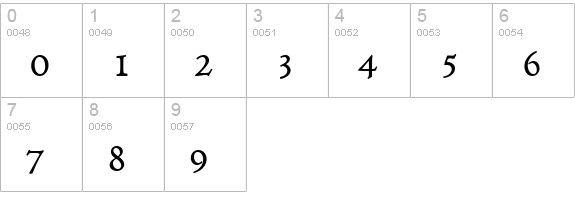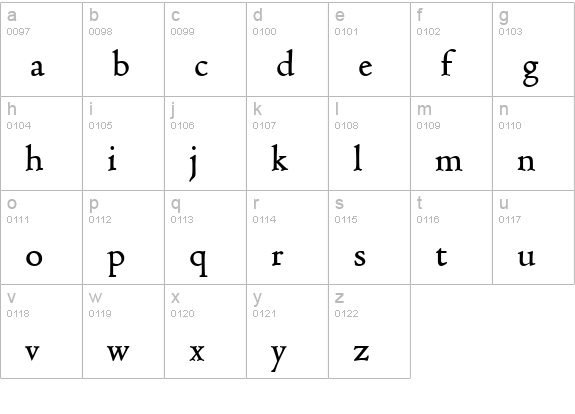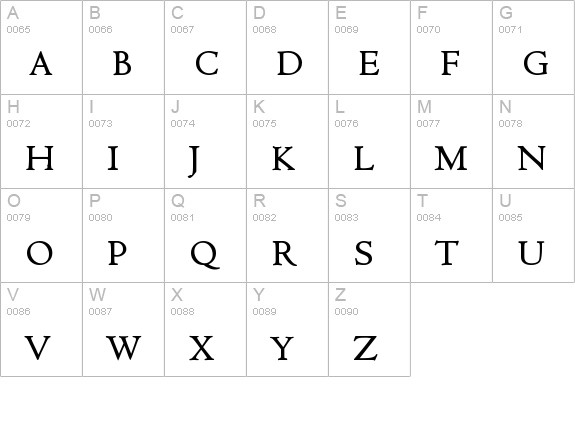
Viviene Bold is a strong, high-contrast variant in the Viviene typeface family \xE2\x80\x94 well suited to headlines, attention-grabbing titles, and strong calls-to-action.
Introducing Viviene Bold, a captivating and elegant typeface that exudes a sense of style and sophistication. This font is perfect for those seeking a bold and impactful design that commands attention. Viviene Bold is a versatile typeface that can be used for various design projects, from eye-catching headlines to stunning logos. Its strong and well-defined letterforms make it easy to read, ensuring that your message is delivered with clarity and impact. What makes Viviene Bold even more enticing is that it is available for free! Yes, you heard it right. This remarkable font can be freely downloaded at FontsMarket.com, allowing you to enhance your creative projects without any additional cost. With Viviene Bold, you can effortlessly create designs that stand out from the crowd. Its sleek and modern appearance will elevate your work to new heights of professionalism and aesthetic appeal. Whether you're designing a website, a magazine layout, or a branding project, Viviene Bold is the perfect choice to make a lasting impression. This font's versatility extends beyond its aesthetic appeal, as it is also compatible with various design software and platforms. So, whether you're a seasoned designer or a beginner, you can easily integrate Viviene Bold into your workflow and bring your creative vision to life. So why wait? Enhance your design projects with the captivating beauty of Viviene Bold. Download this stunning font for free at FontsMarket.com and unlock a world of limitless creative possibilities. Don't miss out on the opportunity to add this remarkable typeface to your design arsenal. Get Viviene Bold today and let your creativity soar!